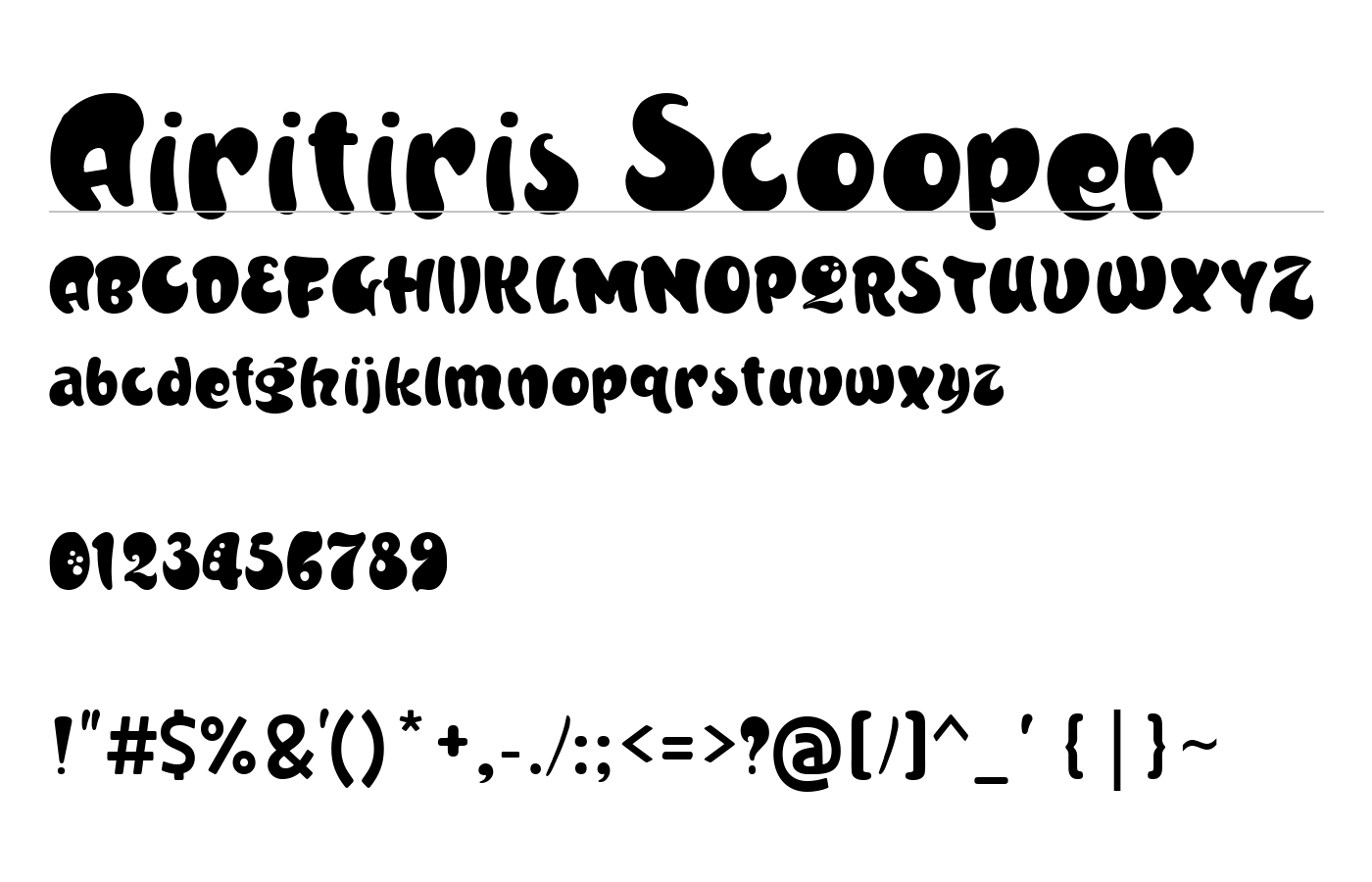
Airitiris Scooper is a playful, bold sans serif font with rounded, organic shapes that give it a fun and whimsical feel. Its thick strokes and uneven curves lend a hand-crafted, casual vibe perfect for children’s products, creative branding, and informal headlines. This font works best where a lively, approachable personality is desired, making it ideal for posters, logos, and packaging that need to stand out with charm and friendliness.
Airitiris Scooper Font